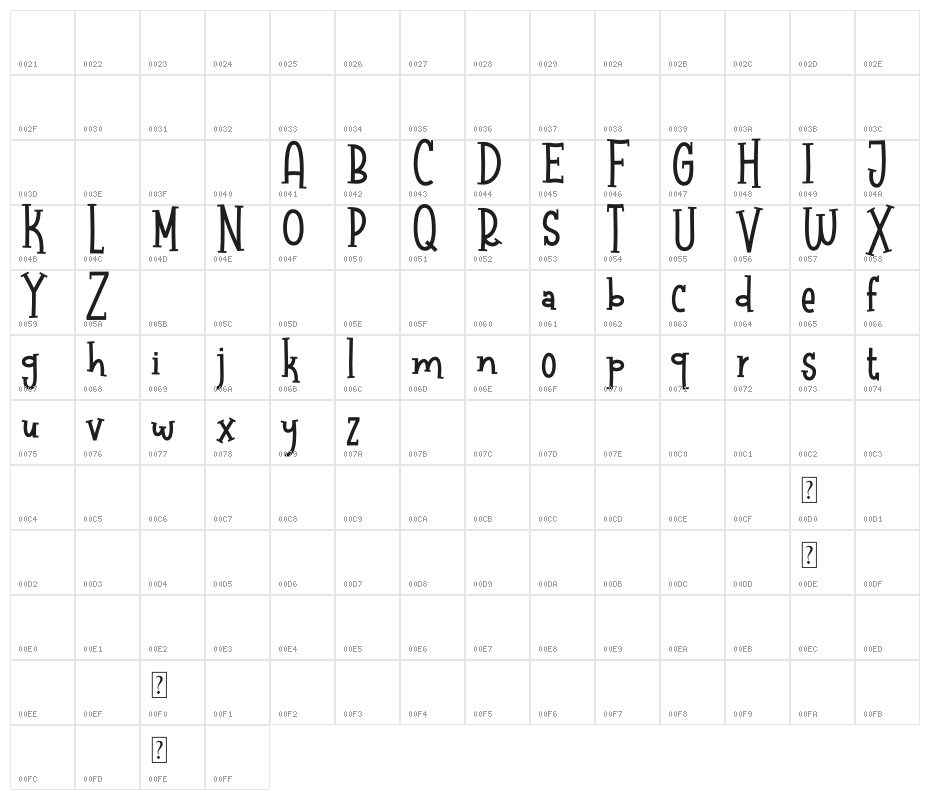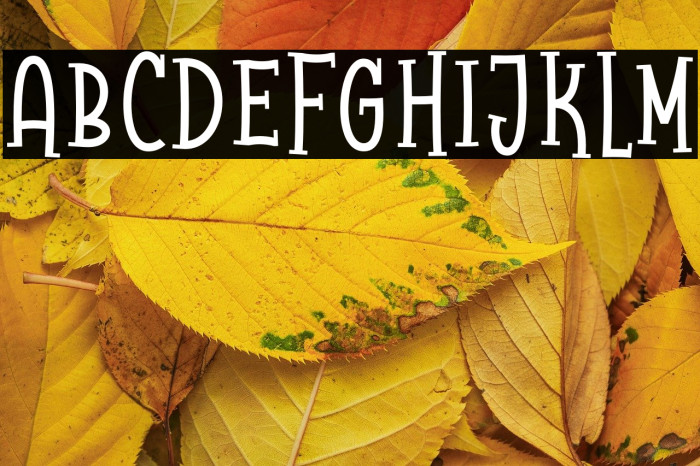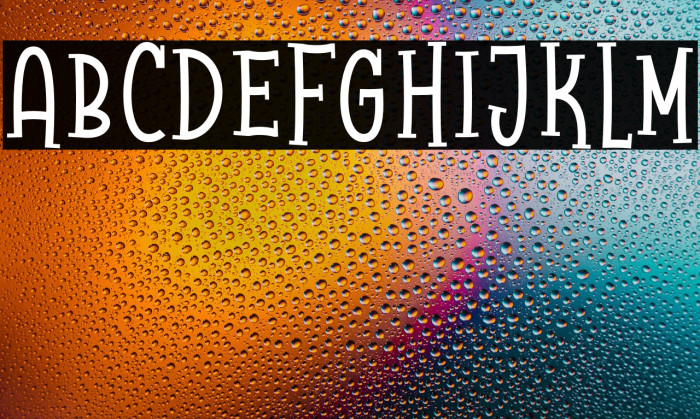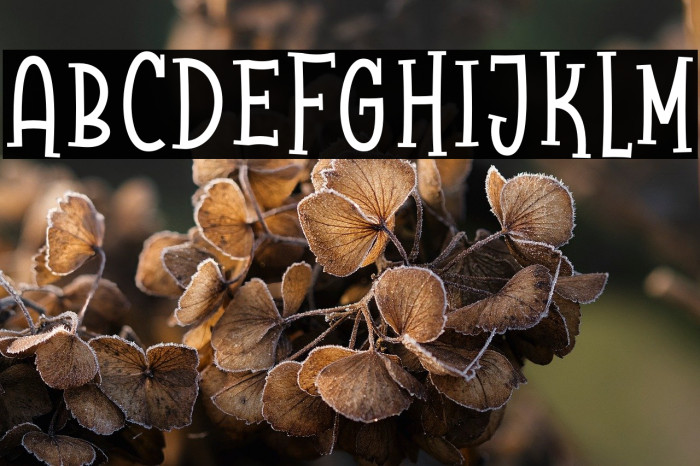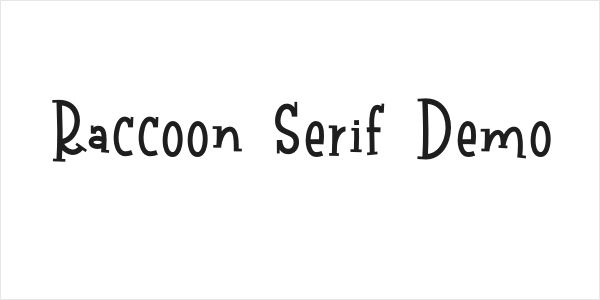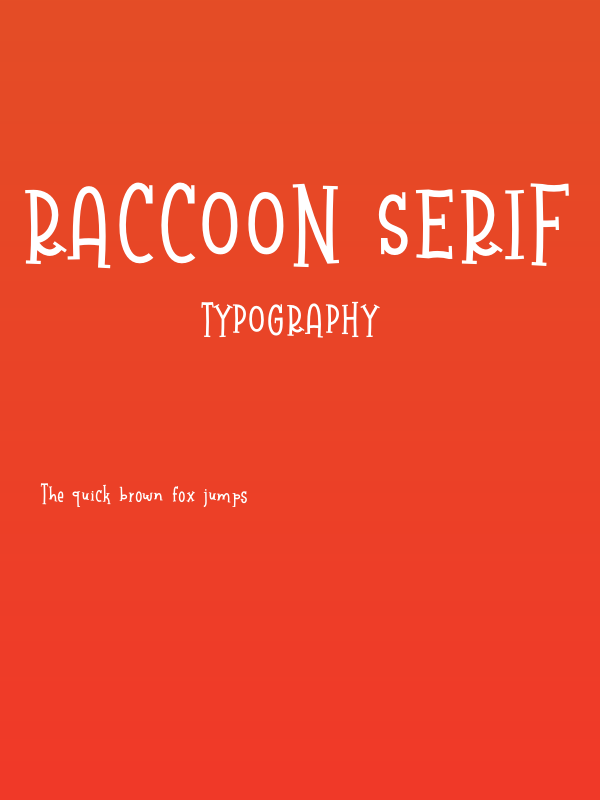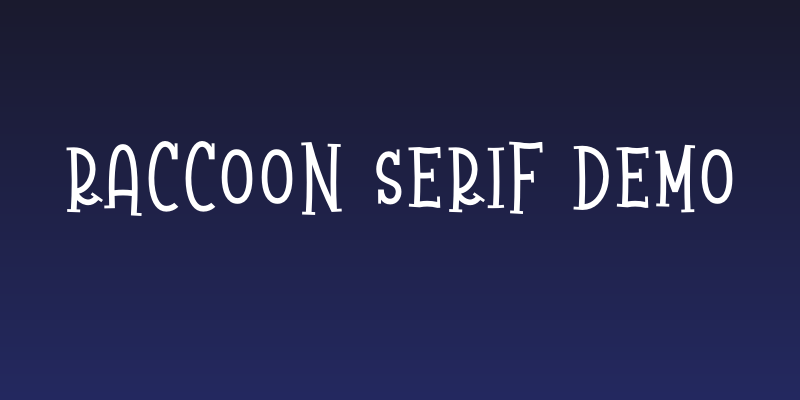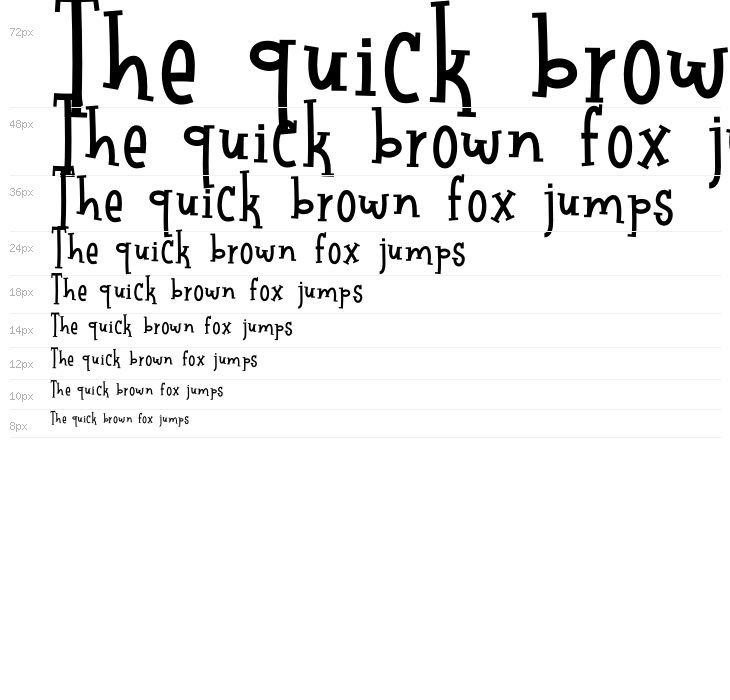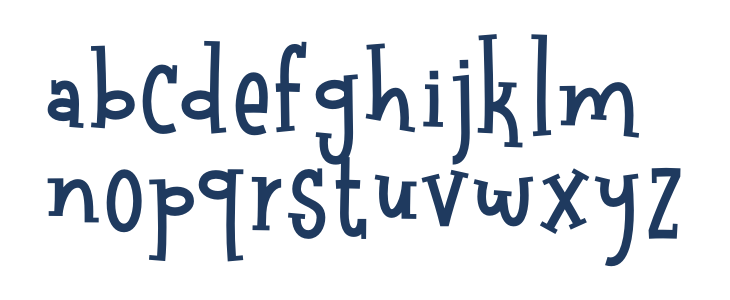
Raccoon Serif Demo Font
Raccoon Serif Demo Description
This font features a playful and whimsical design with a serif style that adds a touch of elegance. The characters have a hand-drawn appearance, with slightly irregular strokes that give them a unique charm. The uppercase letters are tall and narrow, while the lowercase letters are more rounded and compact. The serifs are pronounced, adding to the decorative nature of the font. The overall look is both quirky and sophisticated, making it suitable for creative projects that require a distinctive and artistic touch.
| Proposed Projects | Ideal for children's books, creative branding, playful invitations, and artistic posters. |